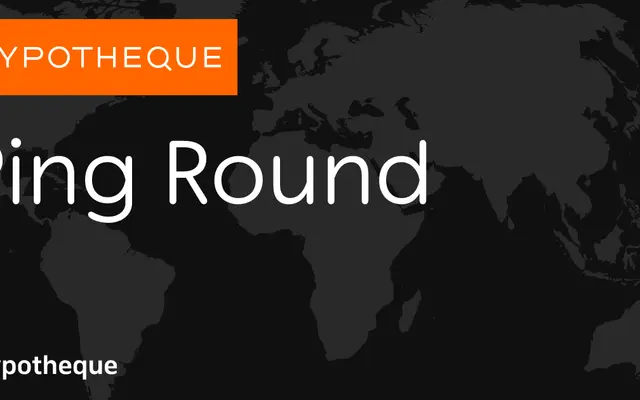
Ping Round
A rounded geometric sans from Typotheque, spanning nine weights from Hairline to Black with matching italics and a variable font option.
The rounded sibling to Typotheque's Ping family, distinguished by softened terminals that give it a warmer character than its sharper counterpart. Nine weights run from Hairline to Black, each with a corresponding italic, and the family is also available as a variable font. The naming convention for individual styles draws on city names from around the world, suggesting broad multilingual ambitions.
Ping Round is a rounded geometric sans-serif, a variant of the Ping family distinguished by its softened terminals and circular construction.